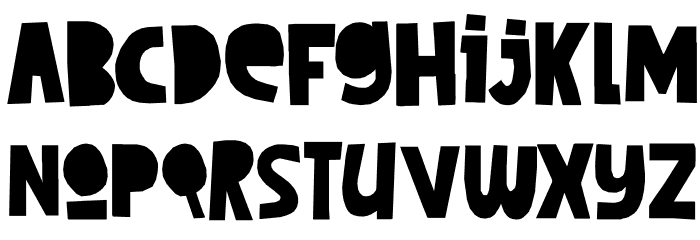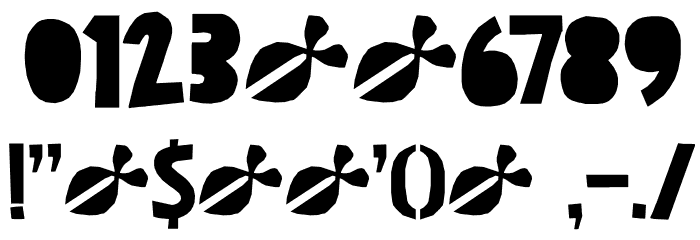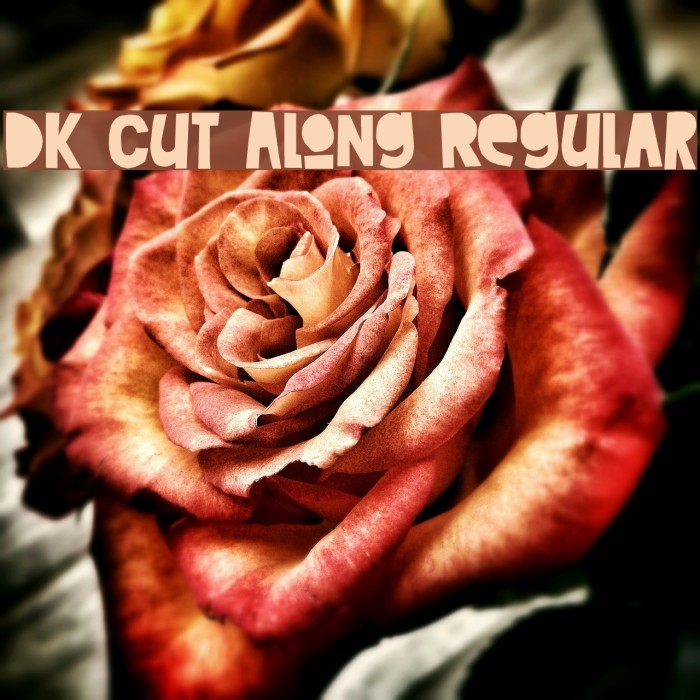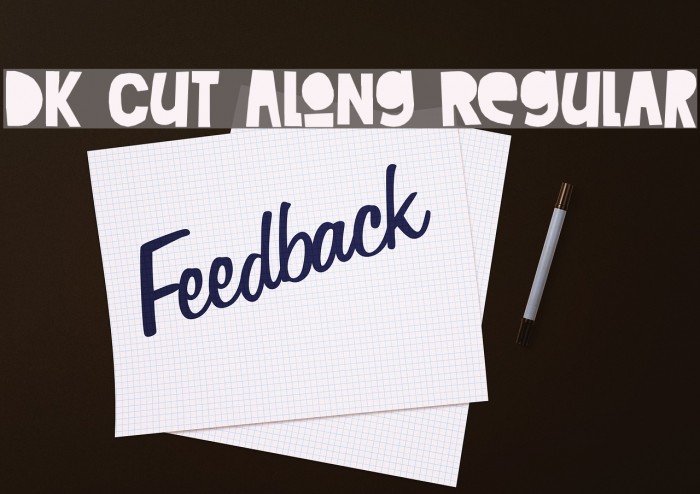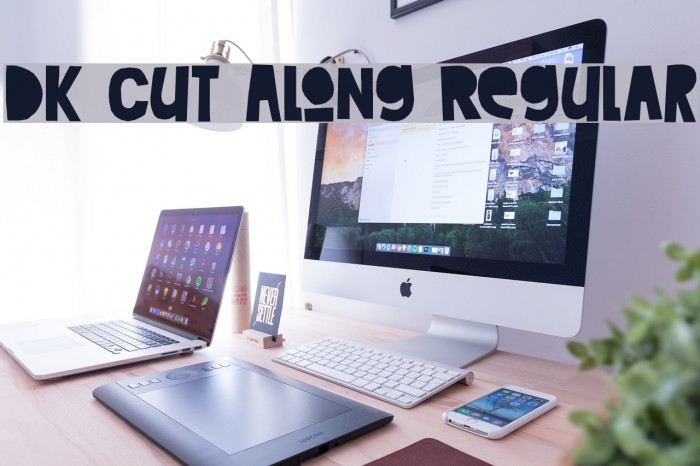
DK Cut Along Regular Font
This font features a playful and bold design with a distinctly handcrafted appearance. The characters are irregular and have a cut-out style, reminiscent of paper cuttings or stencil art. Each letter has a unique shape, contributing to a lively and dynamic visual effect. The uppercase and lowercase letters maintain a consistent style, while the numbers and special characters add to the whimsical nature of the font. The overall look is casual and artistic, making it suitable for creative and informal projects.
A playful, handcrafted font with a bold, cut-out style.
- Proposed Projects: Ideal for children's books, playful branding, creative posters, and DIY-themed projects.